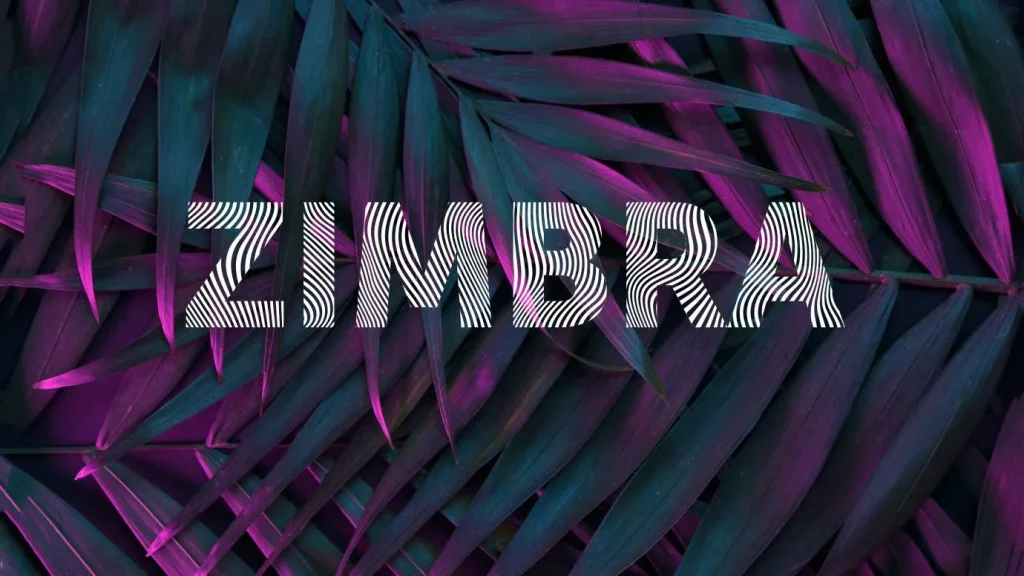
Zimbra Font style comprises all character sets, specific characters, regular punctuation, alternate styles, numbers, and more. It has an amazing textured pattern that looks wonderful on each kind of design.
A preview is provided in the next section where 31 special characters, 26 alphabet letters in upper and lower case, and a numbering system from 0 to 10 are selected to evaluate the typeface. Combining this font pattern with aligator font , can make our project design more attractive.
Presentations and notes can be made with this typeface. You can use this style according to the needs of your project.
The letters of this typeface, have a very sleek look there are few characters in every letter of this typeface that have the right height, and width, and idealized space between the letters.
Yes, by using the Zimbra Font you can make your website design more beautiful.